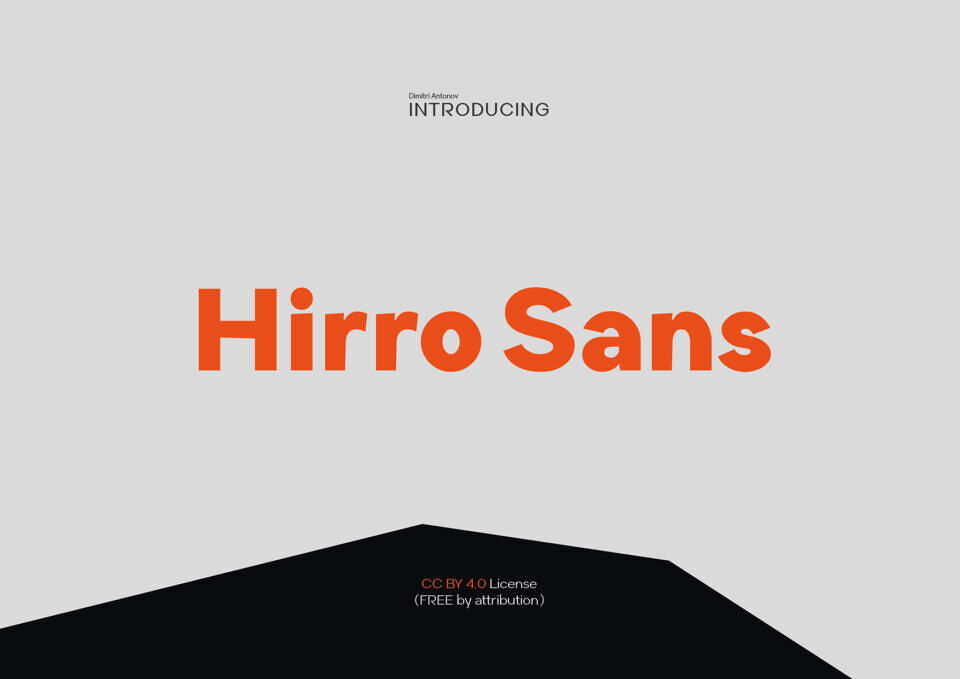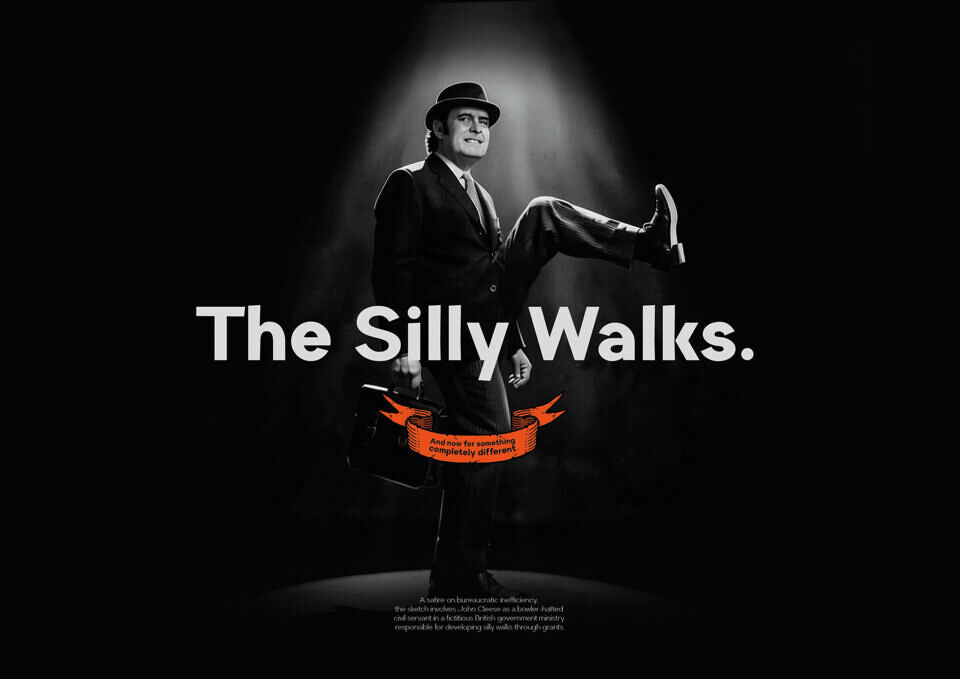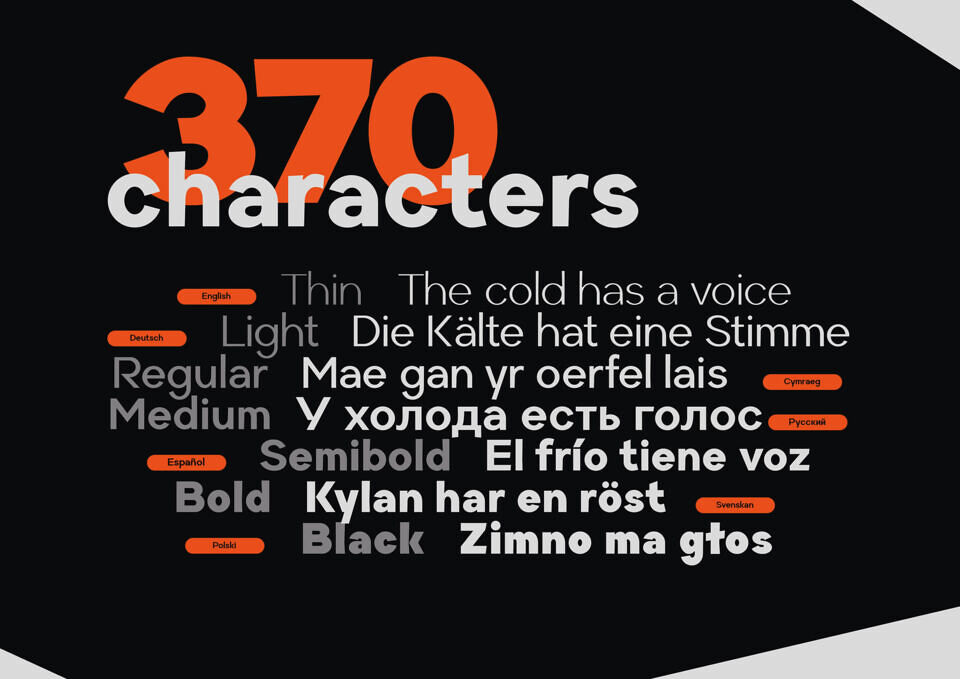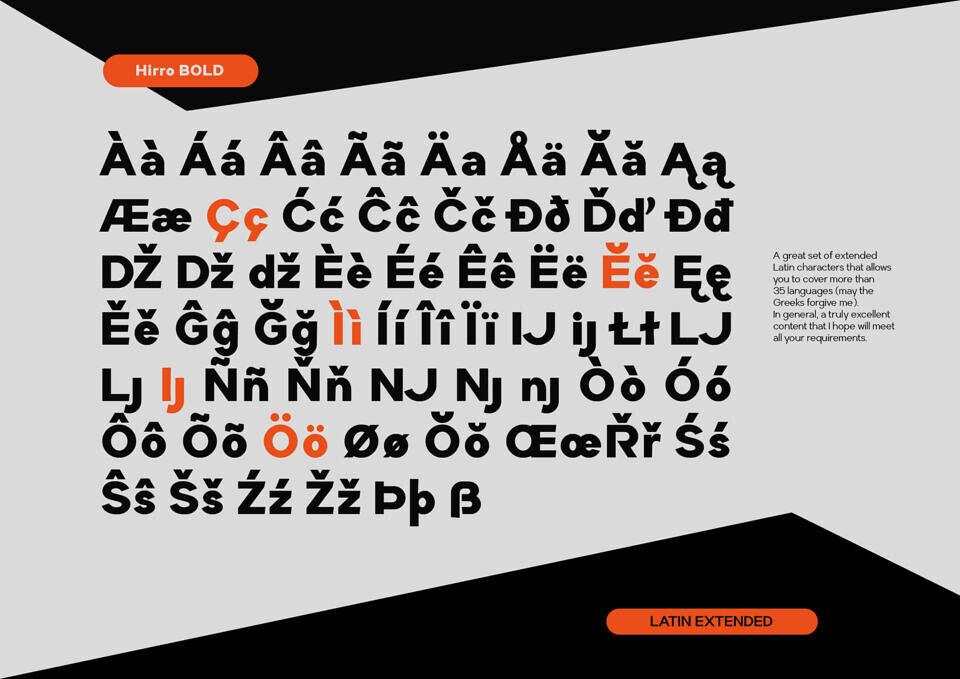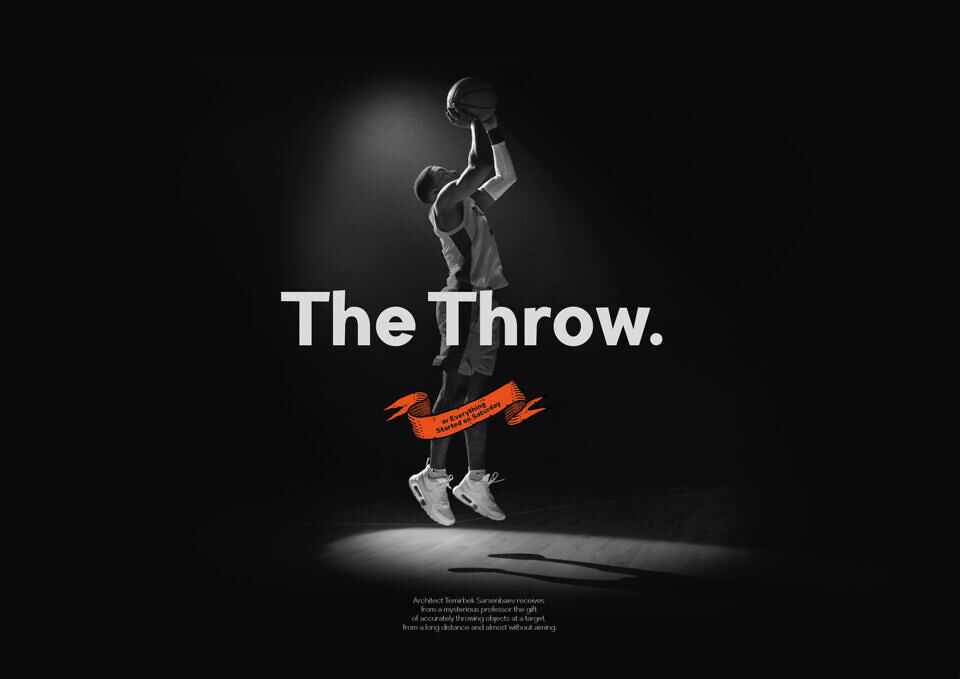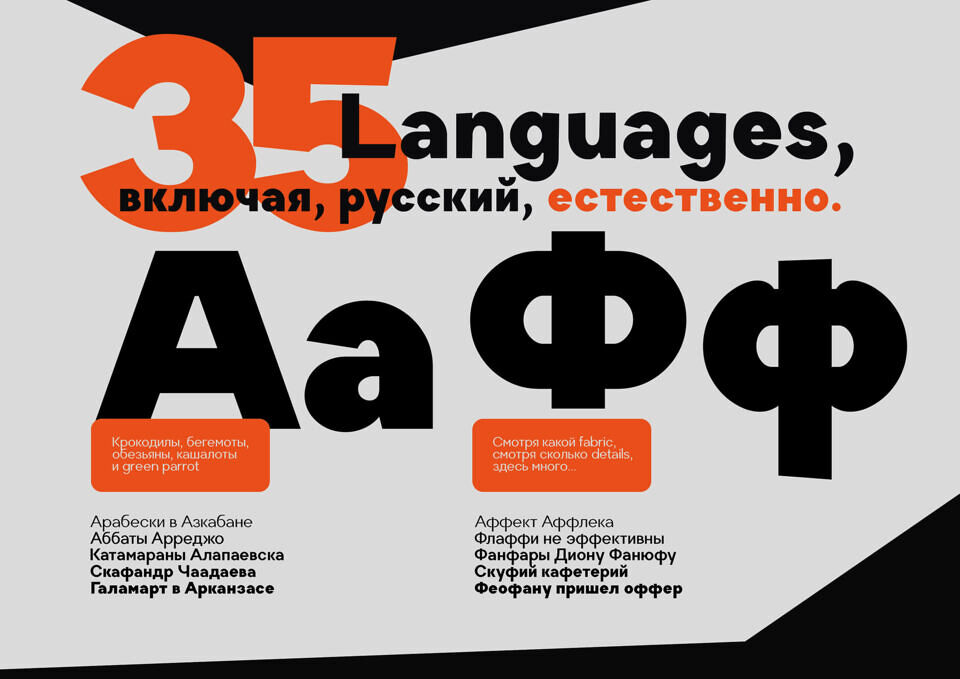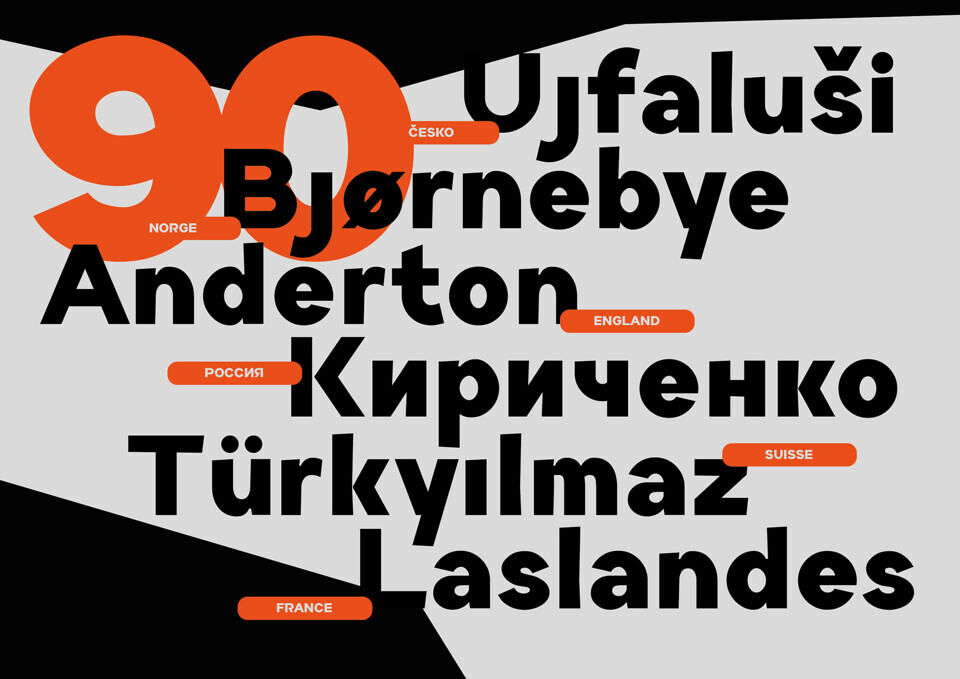
Hirro Sans is a modern, geometric sans-serif font family by Dimitri Antonov, released free under a CC BY 4.0 license. Featuring 370 characters, it offers full Cyrillic support and an extensive Latin Extended character set covering over 35 languages.
This versatile 7-weight family spans from Thin to Black, seamlessly blending clean, minimalist lines with a punchy, high-impact structure. It is highly legible and engineered perfectly for bold display work, corporate branding, and contemporary editorial design.